My Friend Free Font
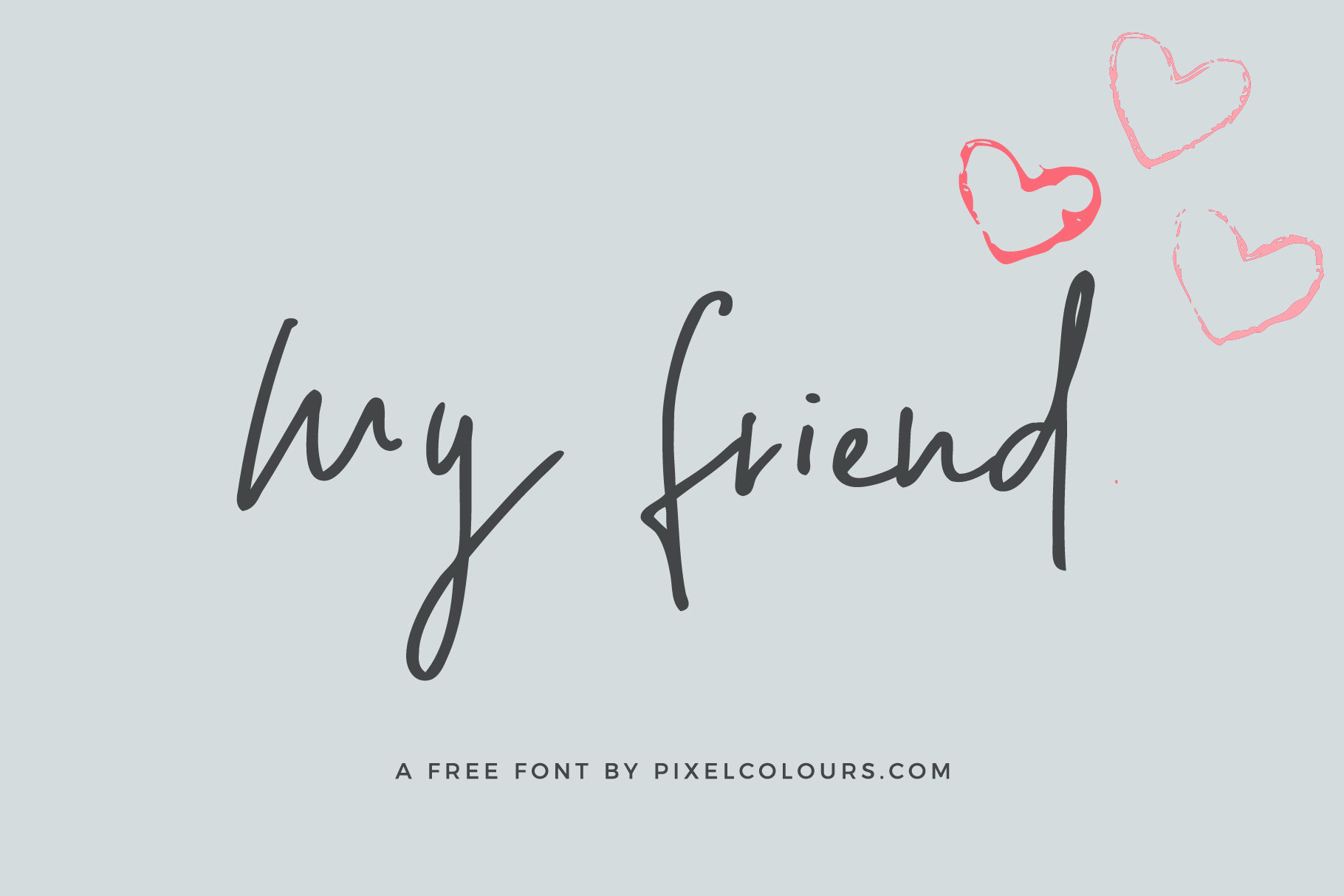
A nice hand crafted font for lovely friend contains uppercase and lowercase characters, numbers and punctuation. Free for personal and commercial use.
Serfina Free Font
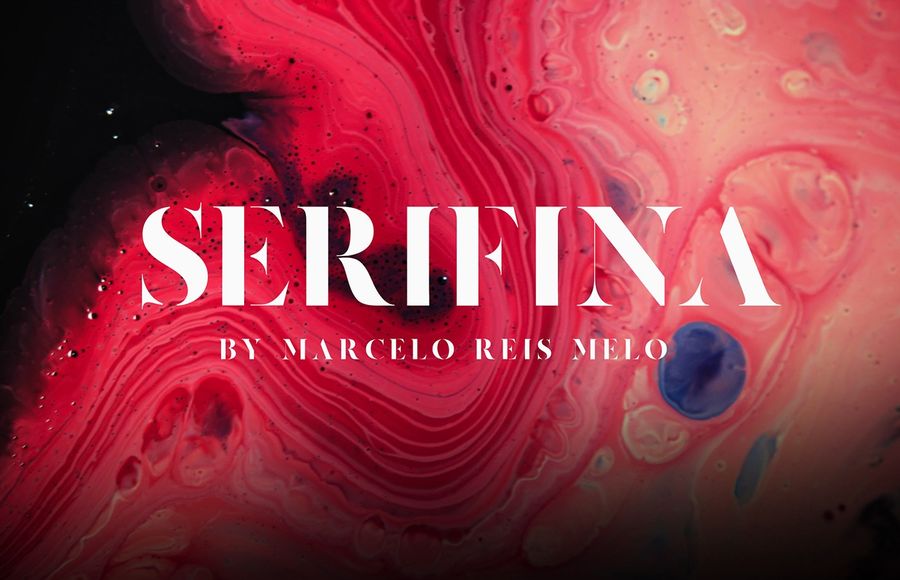
A great font that represents a clash between a soft serif elegance and a strong and powerful stencil feeling.
Quenos Uppercase Serif Typeface
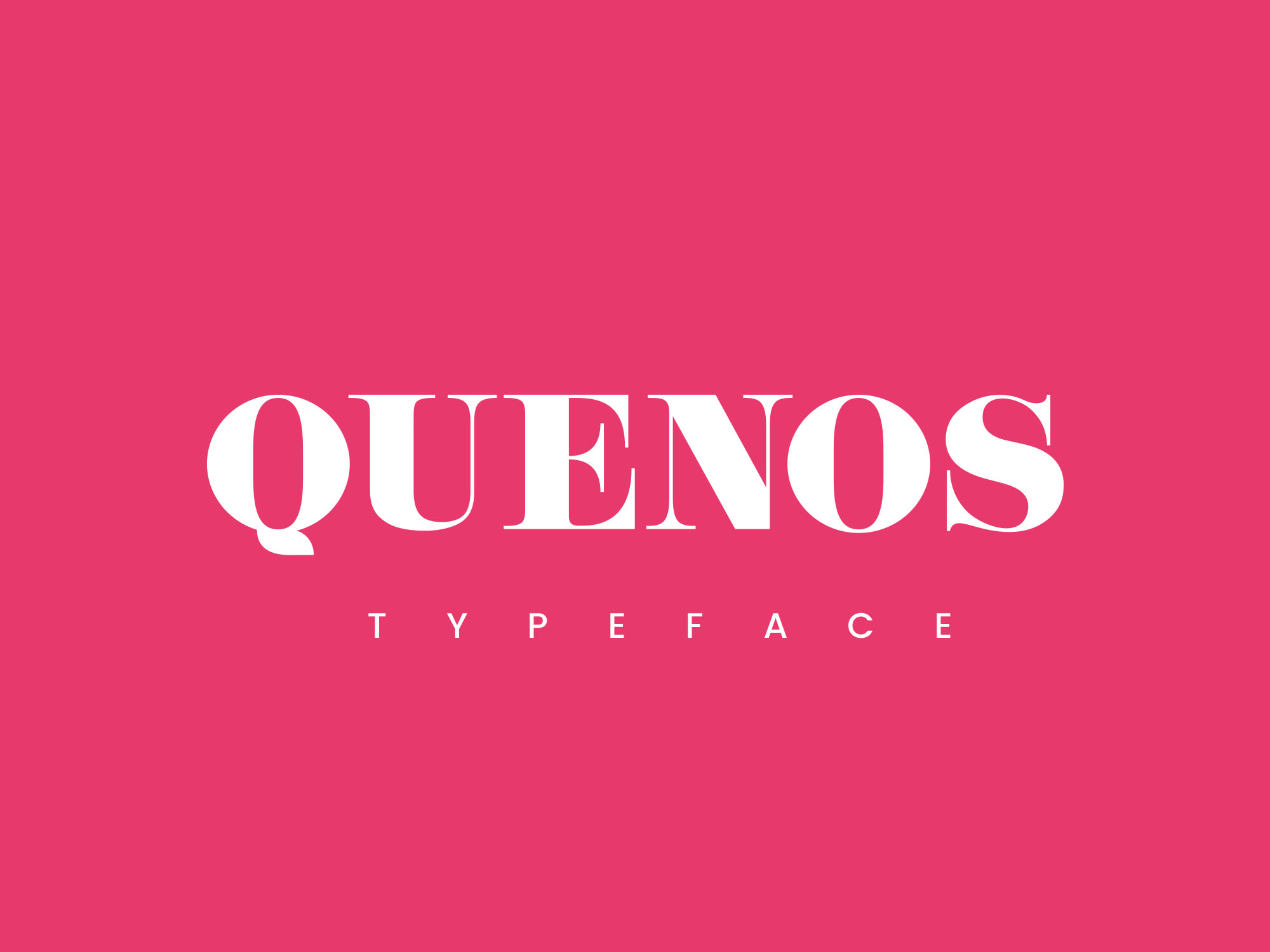
Quenos is a typical serif typeface that was made to add elegance to your designs. Works perfectly for titles and headings, beautifully crafted with attention to details by designers for designers.
Love Hewits Typeface
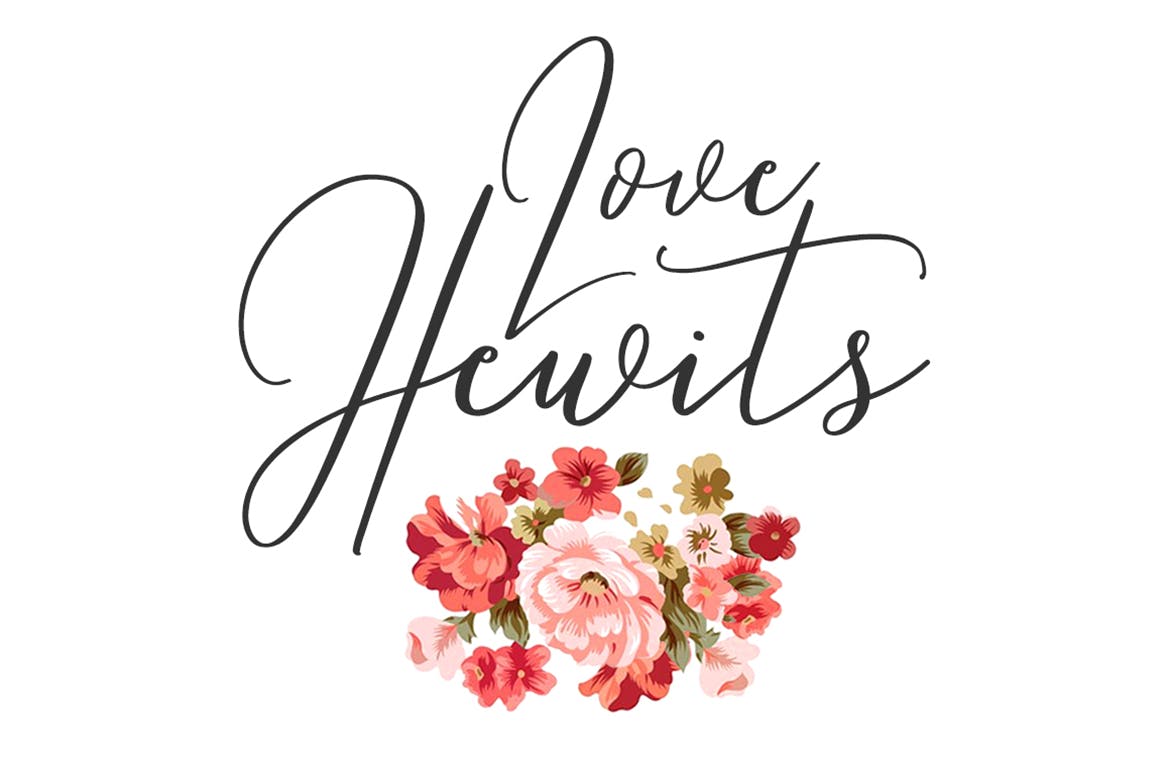
Give your designs an authentic handcrafted feel. “Love Hewits Typeface” is perfectly suited to stationery, logos and much more.
Hard to Love Typeface
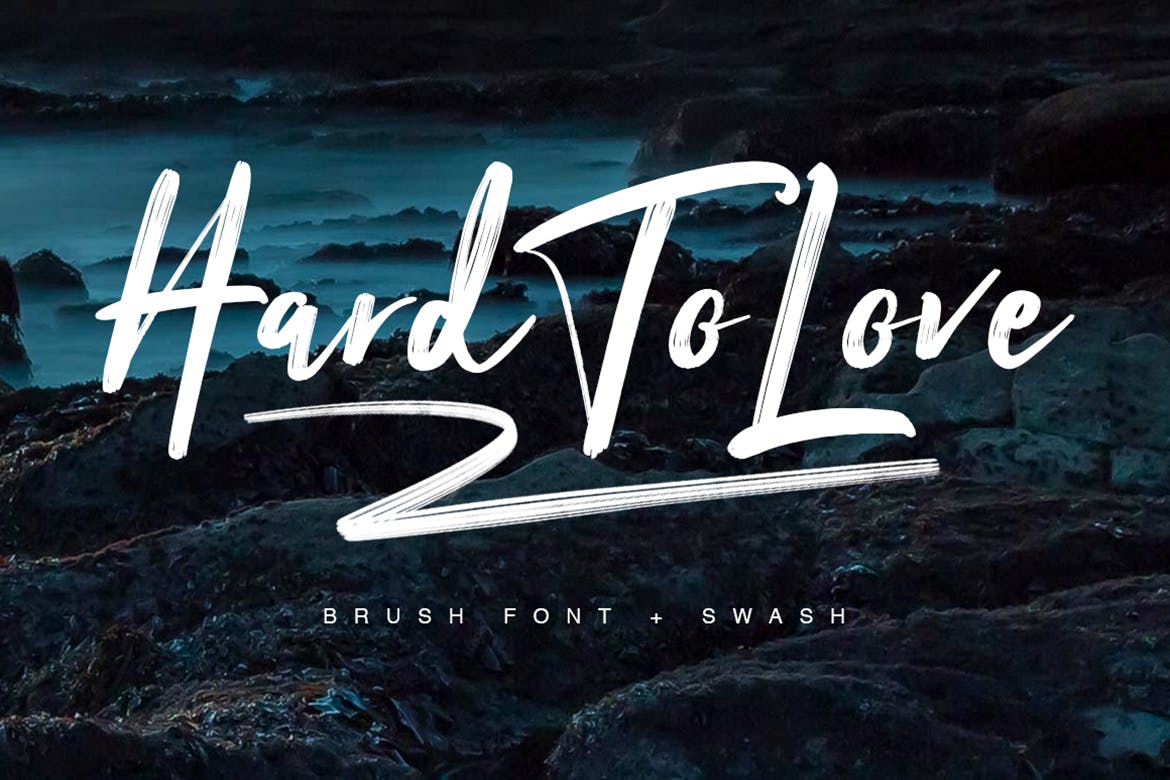
Give your designs an authentic handcrafted feel. “Hard To Love” is perfectly suited to signature, stationery, logo, typography quotes, magazine or book cover, website header, clothing, branding, packaging design and more.
Southern Love
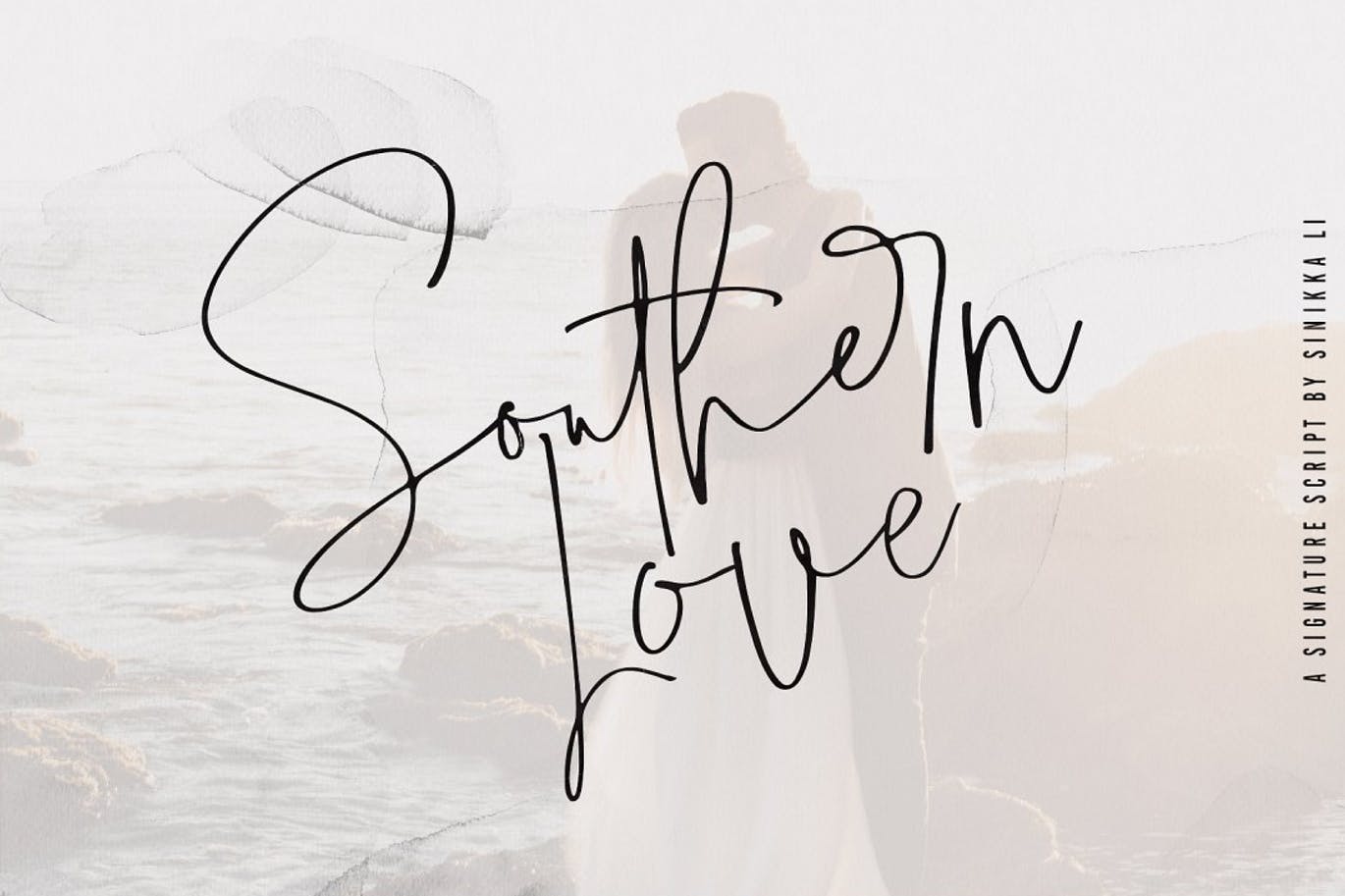
Say hello to “Southern Love”, a signature font with a real wet-ink/ball pen look that makes it perfect for signature logos, printed quotes, wedding invitation cards, social media headers, product packaging and a lot more!
True Love – Curly Valentine Font
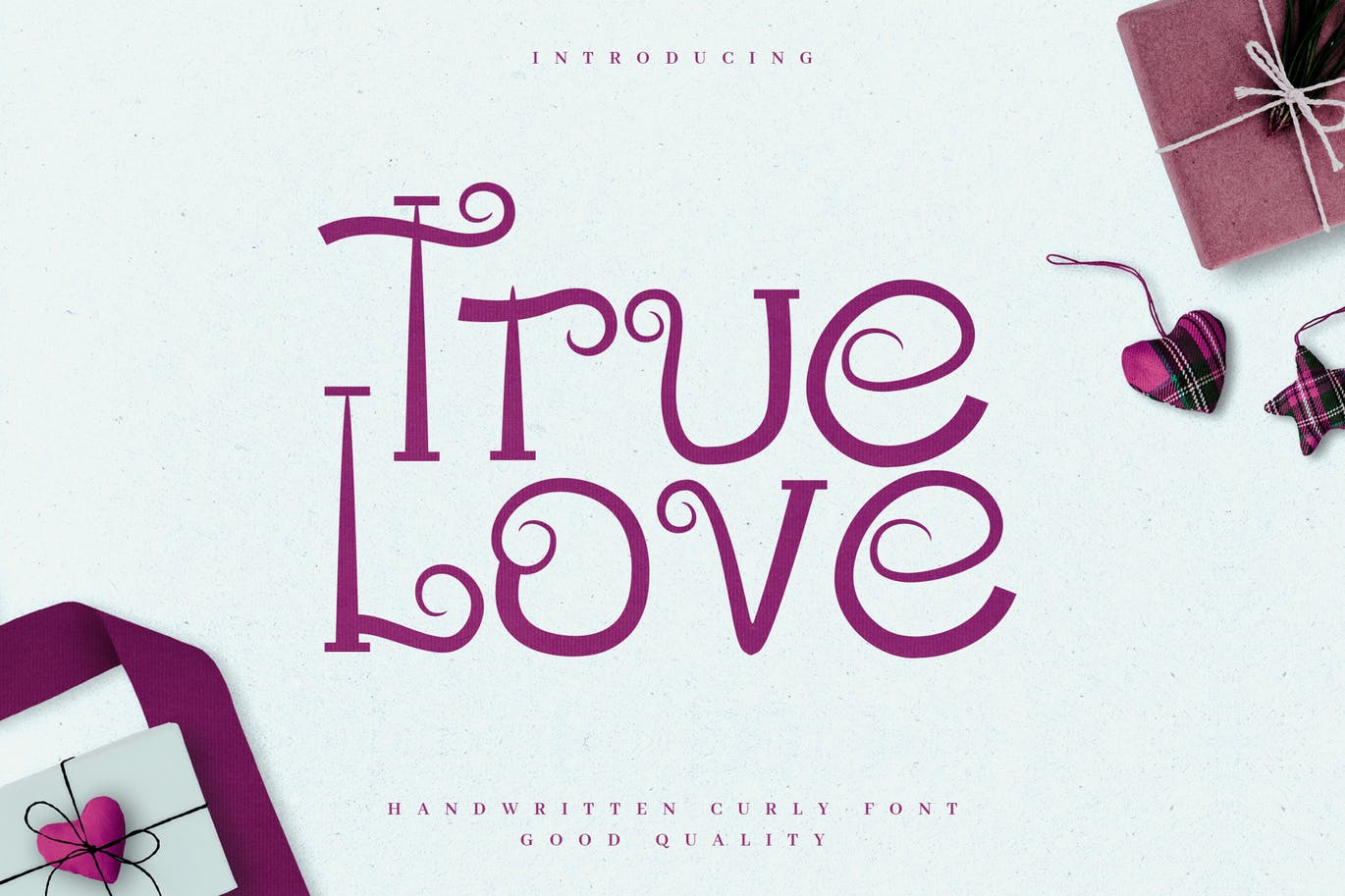
The font is suitable to use for all all purpose. Try to use it on wedding invitation, greeting card, poster, quotes, postcard, photography, branding, editorial, valentine and signature to see the best of it 🙂
Love Rosnita – Font Duo
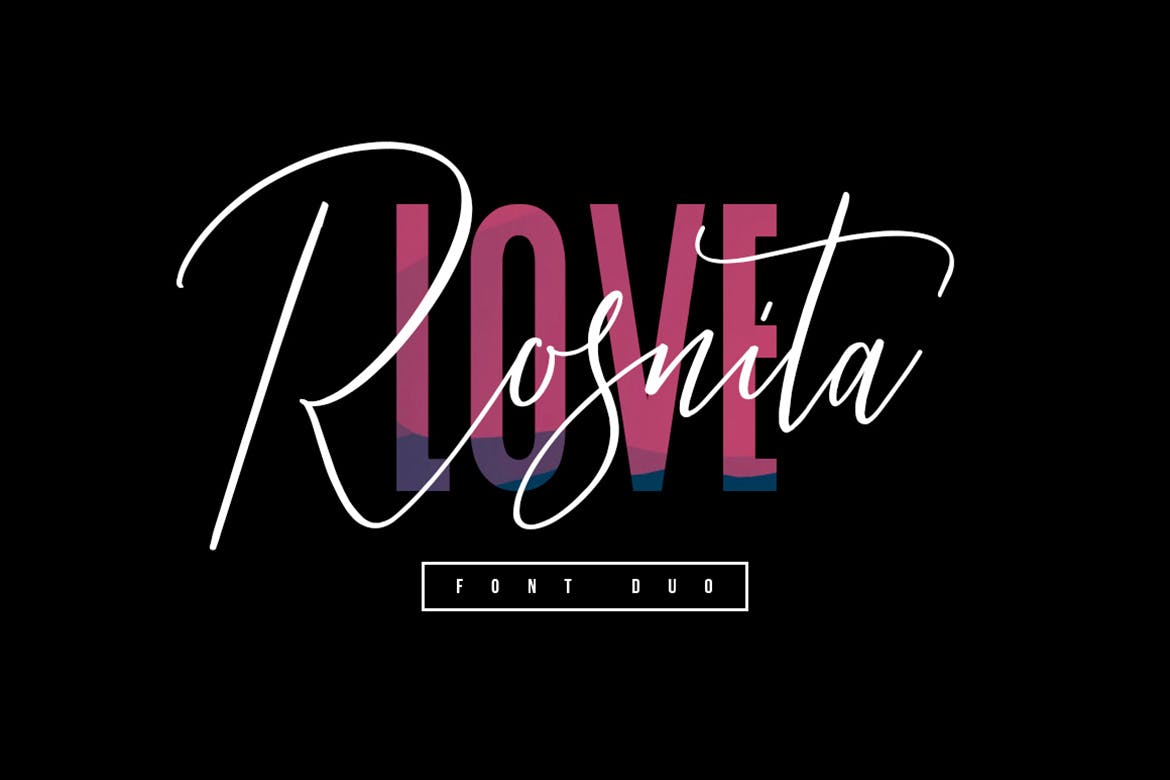
Give your designs an authentic handcrafted feel. “Love Rosnita” is perfectly suited to stationery, logos and much more.
Love You Hand Drawn Valentine Font
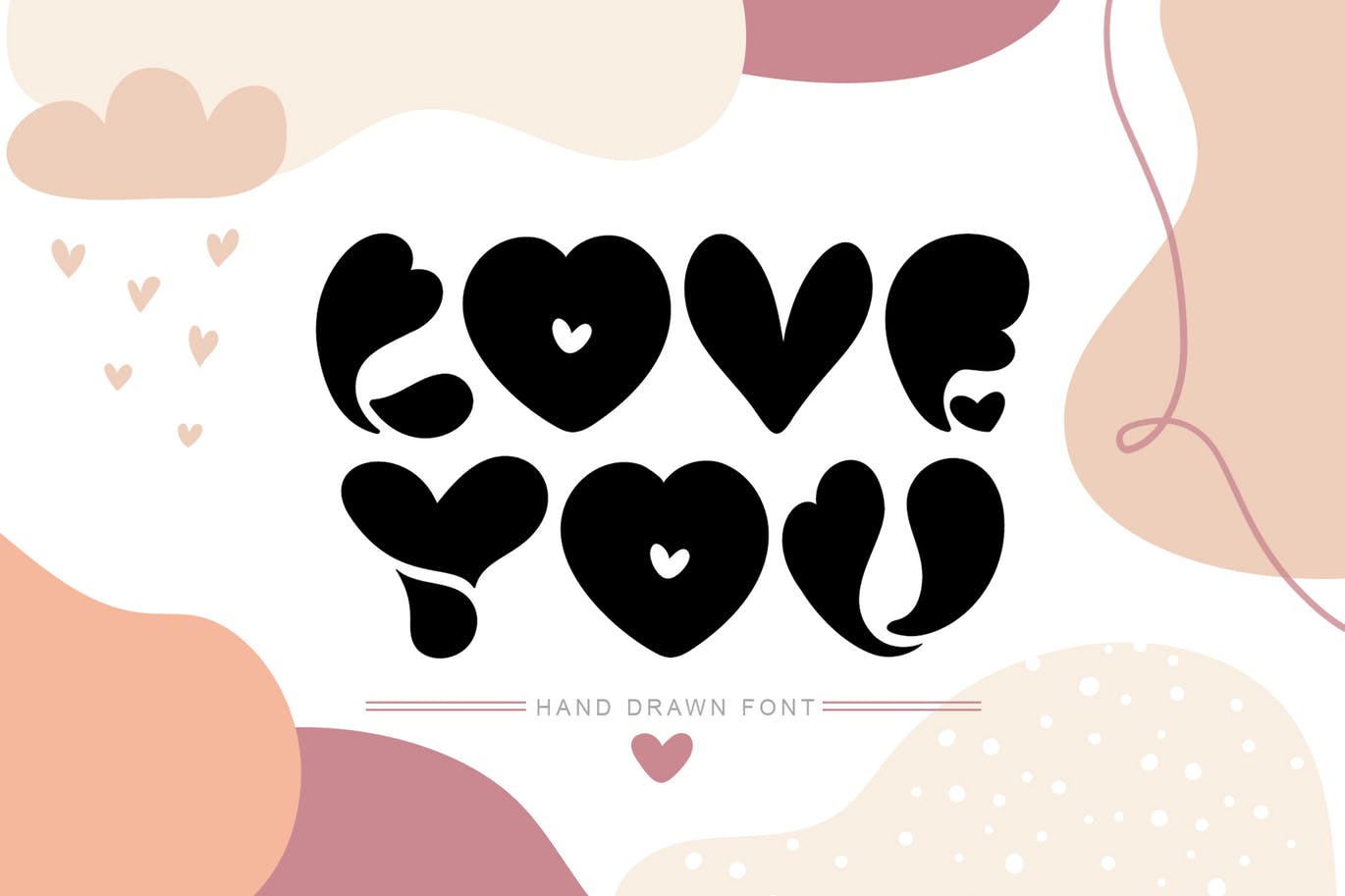
Give your designs an authentic handcrafted feel. “Love Rosnita” is perfectly suited to stationery, logos and much more.
Just Hello Script
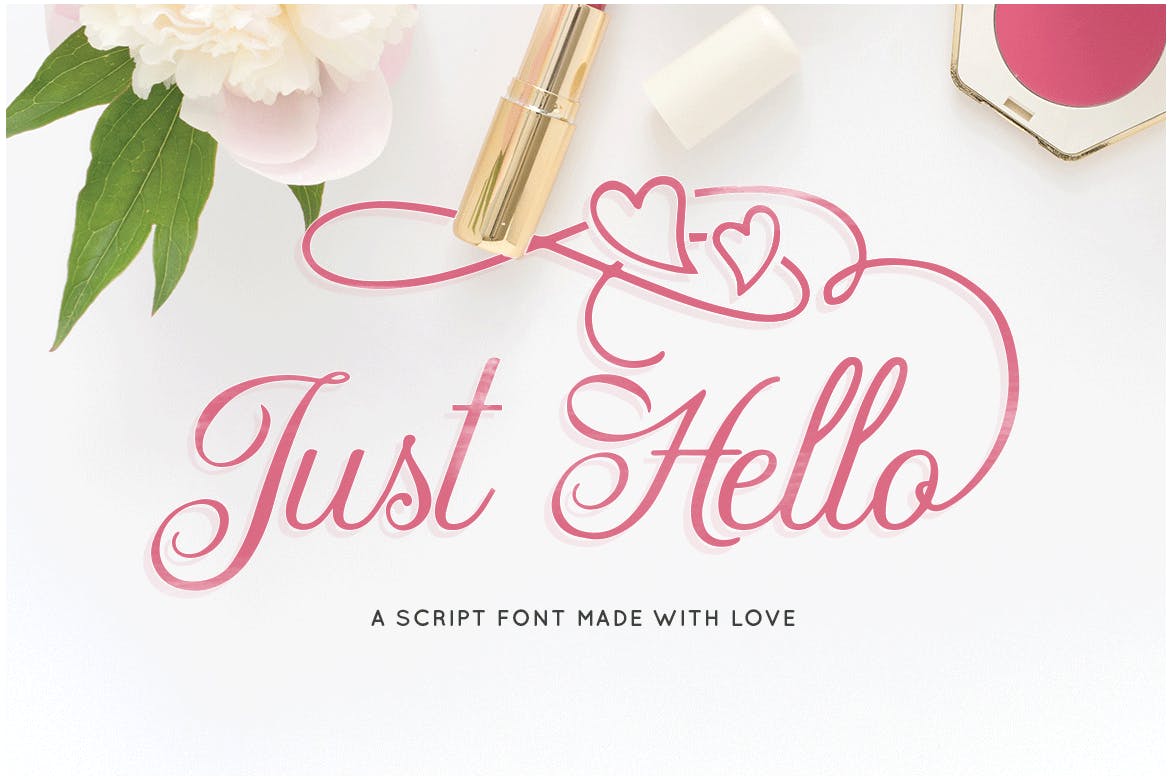
Beautiful script font for your nice Valentine day event. Create anything with it and love.
Lemonsalt Sweet Script
This is a handwritten font made with care and sweetness. With upright calligraphy text form and dancing as well as some additional alternate characters will make it more interesting.
Lovebirds Font
Lovebirds is a fabulous new font that is easy to pair with others and yet strong enough to stand alone! For all of you lovers out there and if you’re not in love, but love fonts.. this one’s for you too!
Bitten Amore – Script Font
Bitten Amore is ccript font with handlettering brush style, with opentype feature include of the font. Suitable for design, element design, wedding, event, t-shirt, logo, badges, sticker, and awesome work, etc.
Yellove Duo – Fun Casual Font
It contains 2 styles, Yellove and Yellove Too. The Yellove Too is an alternative shape from the Yellove. So your design will looks like traditionally handwritten because the handwriting letters are never be the same 🙂
Arellia – Beautiful Script Font
Arellia Script is a beautiful font that features a varying baseline, smooth line, modern and with a depth love. For those of you who are need a touch of love and modernity for your designs or branding, it can be used for various purposes such as headings, wedding, invitation, signature, logos, branding, t-shirt, letterhead, signage, lable, news, posters, badges etc.
Oikima Script
Oikima got style and love all the luxuries in life. It’s highly recommended to turn your Opentype features (Ligature) on while using the script font. Your text looks like natural handwriting.
Melamar – Romantic Calligraphy Font
Melamar – romantic calligraphy is a stylish calligraphy font that features a varying baseline, smooth line, modern and with a depth love.
Wild Love Fonts Symbols & Logos
Wild love is an amazing collection of fonts, symbols, logos & textures that has everything you font lovers dream of. This amazing collection comes with two fonts that pair perfectly together and a set of symbol illustrations that will make designing Instagram quotes, websites & invitations so much easier and fun.
Someday Script
Someday Script is perfect for branding, wedding invitations, magazines, mugs, business cards, quotes, posters, and many more that you can use on your big project will be very beautiful.
Valentine
Valentine is another lovely modern Script font, which is combining the style of classic calligraphy with an modern style. combines from copperplate to contemporary typeface with a dancing baseline, modern and elegant touch. including alternates, and ligatures.